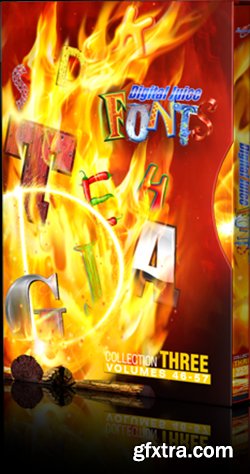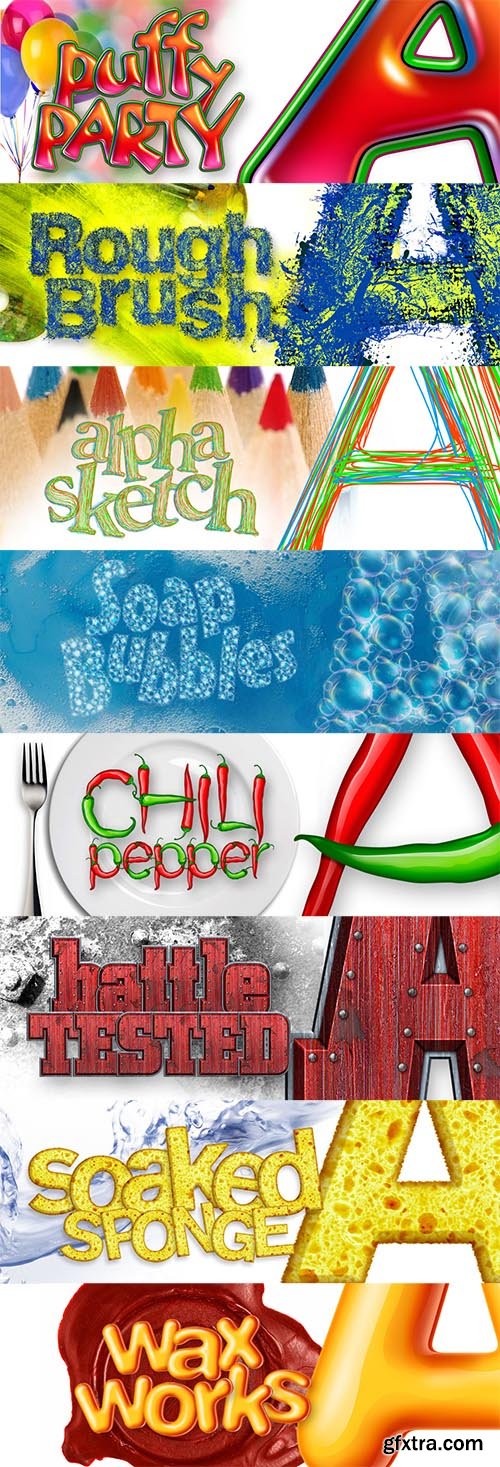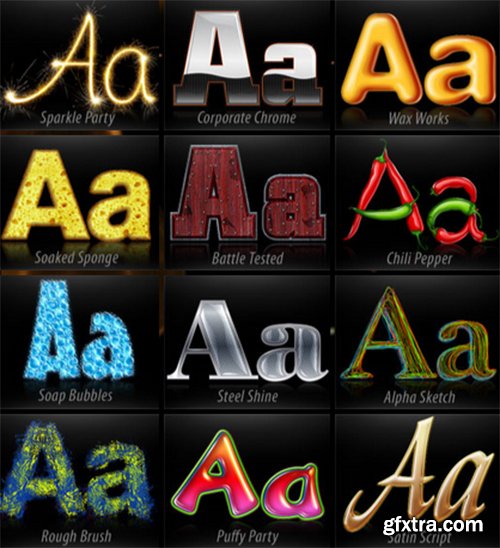
Description: DIGITAL JUICE FONTS, Collection Two takes off right where we left off in the first collection with ten completely new font families and over 400 new DJ Fonts.
Each DJ Font Family in this collection is the result of hundreds of hours of painstaking detail work by our illustrators. This effort, in tandem with the endless hours put in by our programming team has provided you with a product more customizable, more powerful, more useful, and more fun than any product we've ever released.
Digital Juice Fonts: Collection 3
BY THE NUMBERS
10 Brand New Font Families
More than 400 ready-to-use Standard DJ Fonts variations
10 Illustrated Fonts
5-35 layers per illustrated font
Each font glyph designed at a high resolution of approx.
2000 x 2000 pixels for maximum flexibility in uses
Most fonts contain a full
152-character glyph set